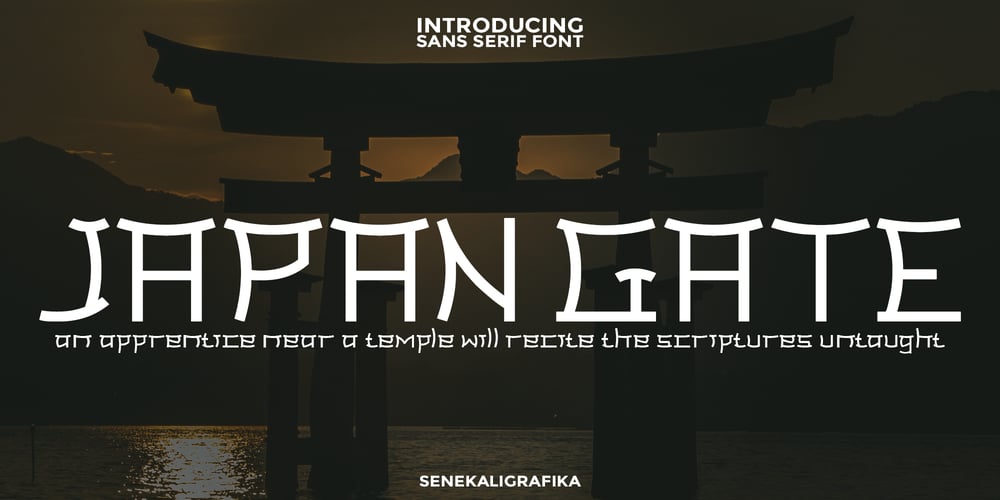
Japan Gate Font Family was designed by Agus Setiana and published by Senekaligrafika. Japan Gate contains 1 styles and family package options. “Japan Gate” is a Japanese-style display font inspired by traditional Japanese gate (Torii Gate) .This font is a sans serif font with a authentic japanese look and feel designed as unique as possible to create a beautiful and easy-to-read combination of sentences. This font is also very flexible for you to use in your various projects, ensuring that your project has a fantastic and appealing appearance that will be remembered by all audiences.Logotypes, food banners, branding, brochure, posters, movie titles, book titles, quotes, and more – may all benefit from this font.The owner of endless possibilities!